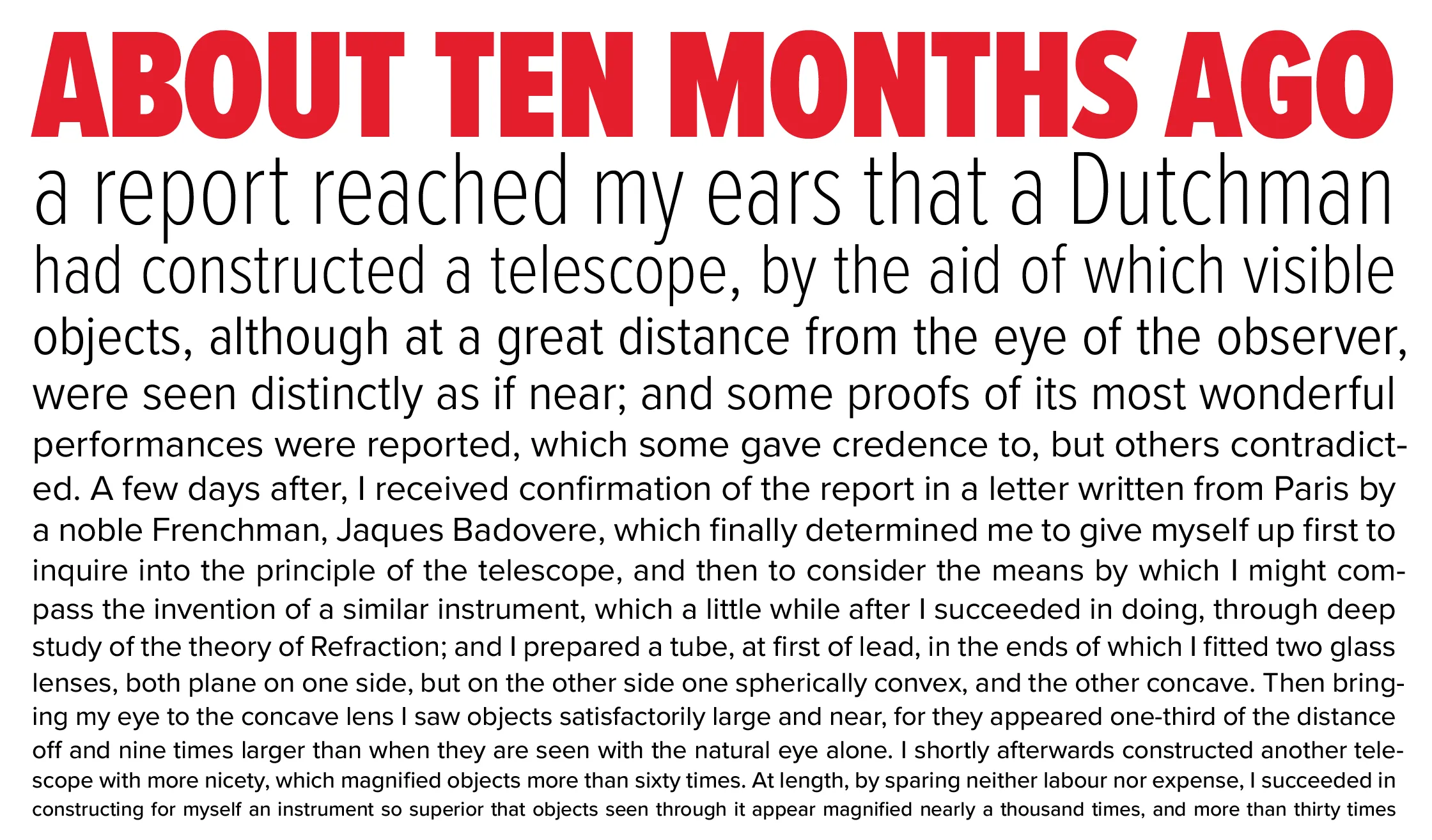
Proxima Vara Font
The Proxima Vara Font excels in variable branding applications, responsive web design, dynamic advertising campaigns, editorial layouts, corporate presentations, mobile app interfaces, and adaptive digital signage. This versatile typeface provides endless customization possibilities for contemporary design projects requiring flexible typography solutions.
What makes the Proxima Vara Font so exciting is its revolutionary variable font technology that allows seamless transitions between different weights, widths, and optical sizes within a single font file. This innovative approach enables designers to create fluid typography that adapts perfectly to various screen sizes, reading distances, and design contexts while maintaining optimal legibility and aesthetic appeal.
The Proxima Vara Font family includes multiple axes of variation including weight (thin to black), width (condensed to extended), and optical size adjustments, giving designers unprecedented control over typographic expression and space utilization in their layouts.
Whether you're developing responsive websites that need to perform flawlessly across devices, creating brand guidelines that require consistent typography at various scales, or designing publications that demand precise typographic control, this font delivers exceptional performance. The advanced OpenType features ensure professional-quality typography while the variable technology reduces file sizes and improves loading times for web applications.
Typography experts appreciate the font's ability to maintain character integrity across its entire variable range. The carefully calibrated optical adjustments ensure that text remains perfectly readable whether displayed as tiny mobile interface elements or large-scale environmental graphics.
The Proxima Vara Font represents the future of digital typography, offering designers tools that were previously impossible with traditional static fonts. The seamless interpolation between styles creates smooth animations and transitions that enhance user experience in interactive applications.